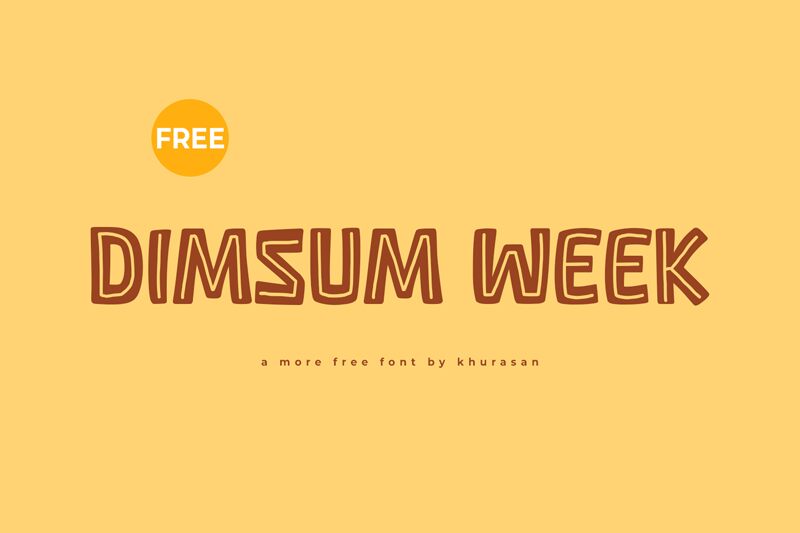
Dimsum Week
Dimsum Week is a bold, cartoon-inspired display font designed by Khurasan. With its playful, whimsical strokes and distinct edges, this font exudes a delightful sense of personality.
The chunky letterforms and playful character shapes lend themselves perfectly to eye-catching headlines, logos, and branding applications. Dimsum Week's versatility shines through in its ability to convey a range of moods, from quirky and lighthearted to modern and stylish.
Whether you're crafting a vibrant children's book cover or a fun social media campaign, this font is sure to add a touch of charming flair to your design.